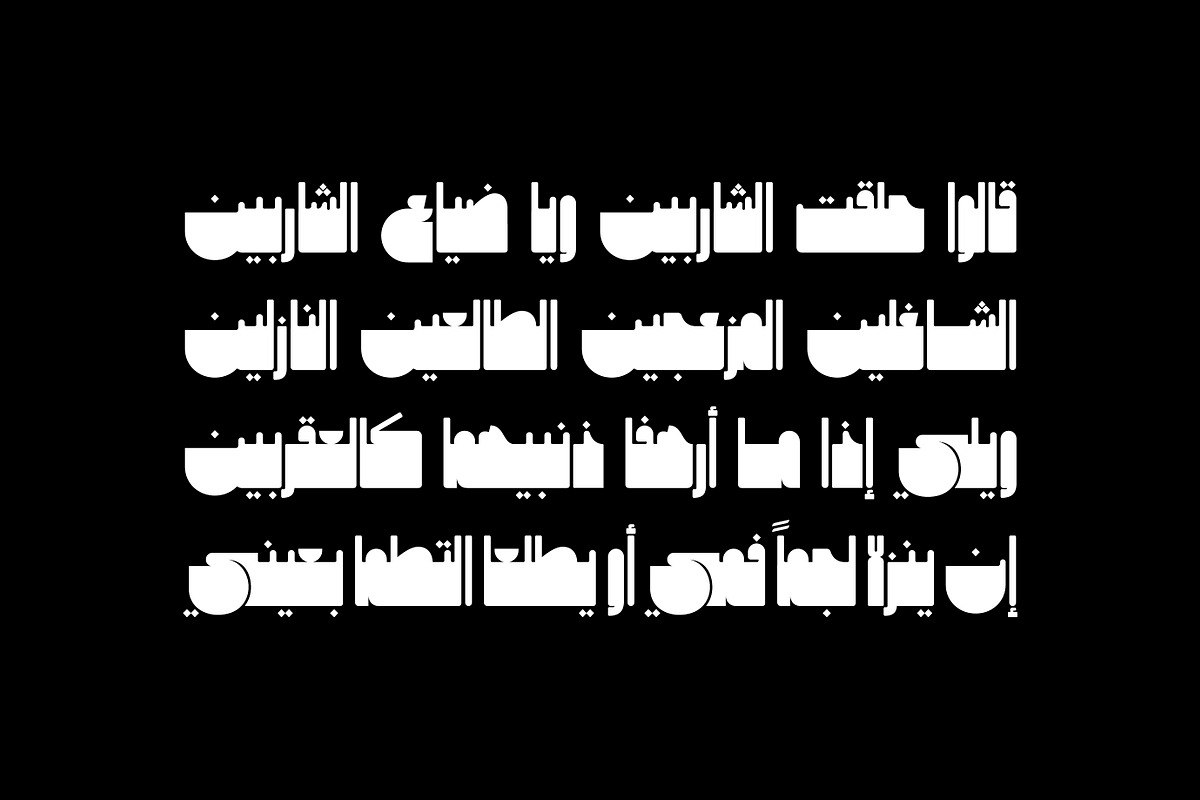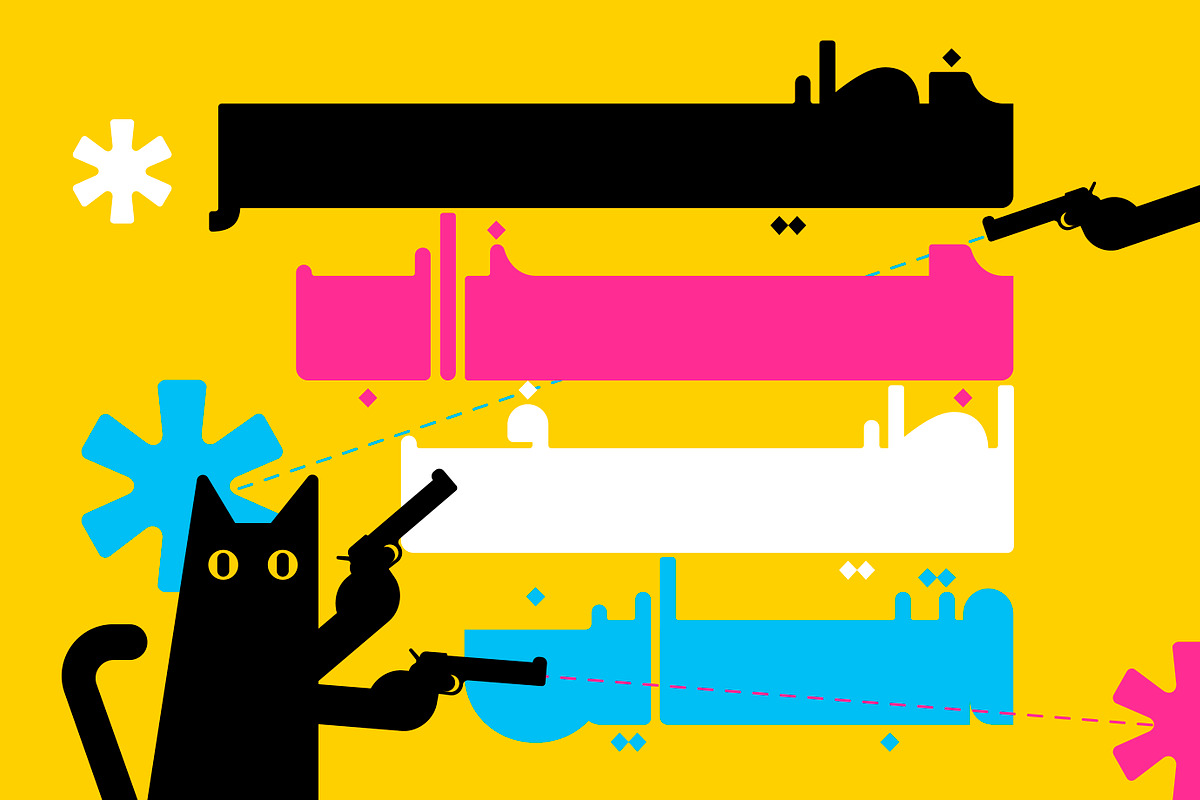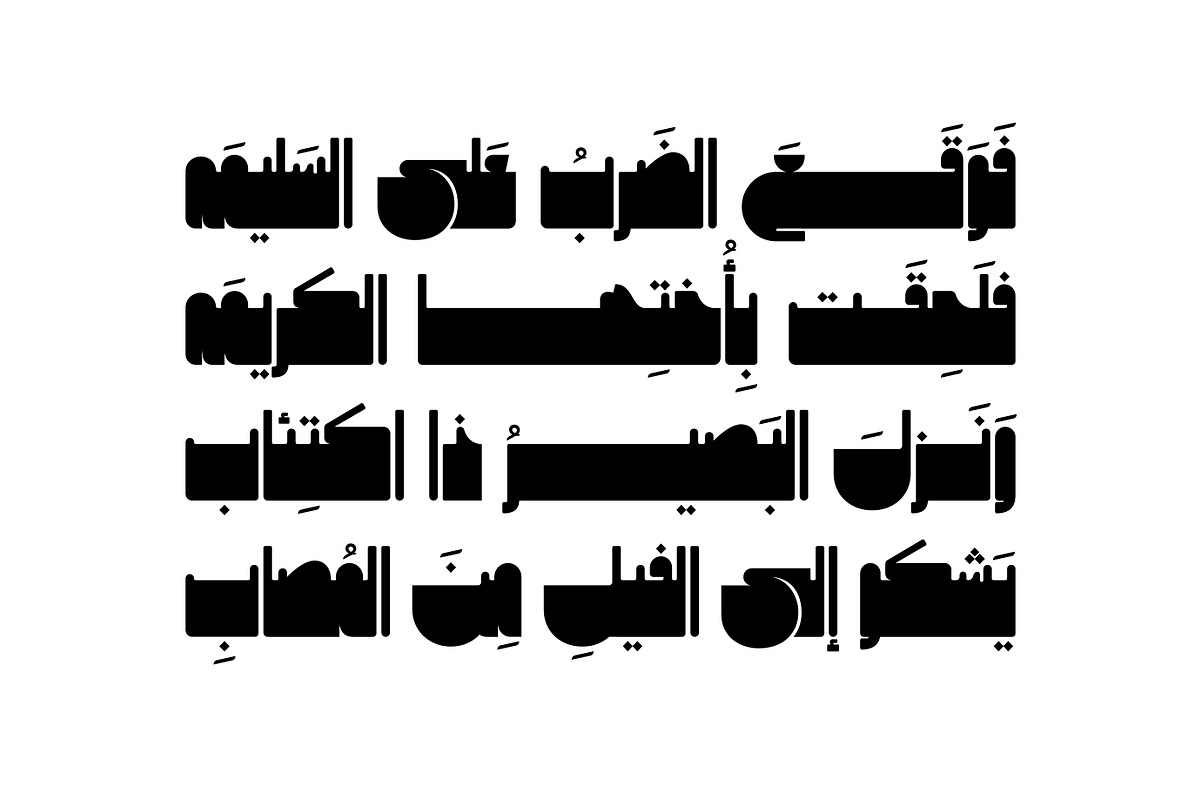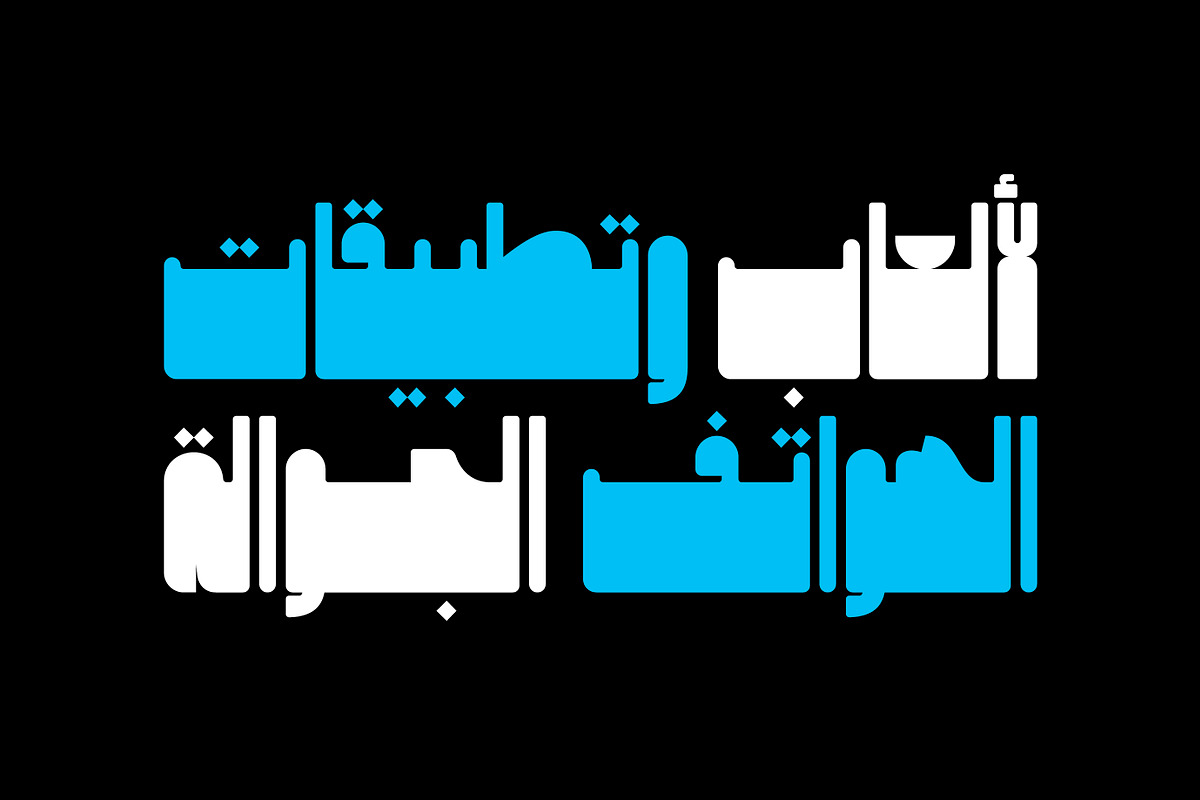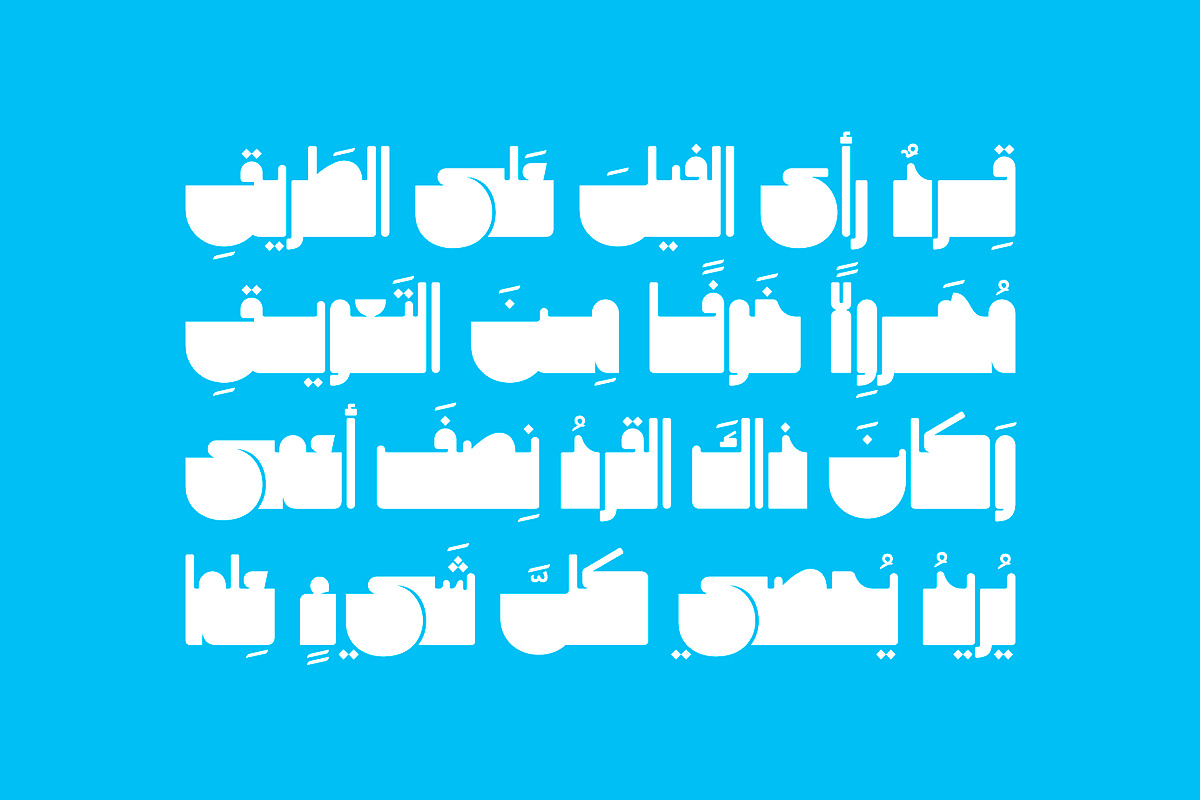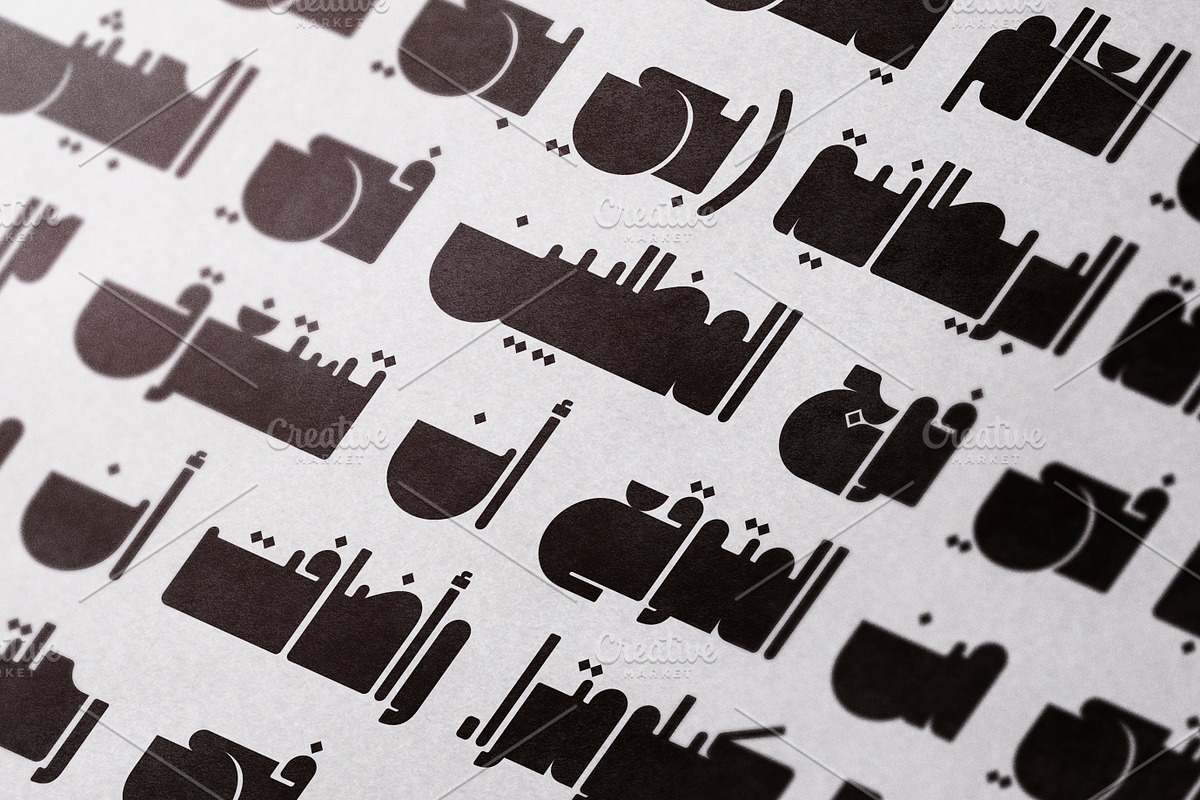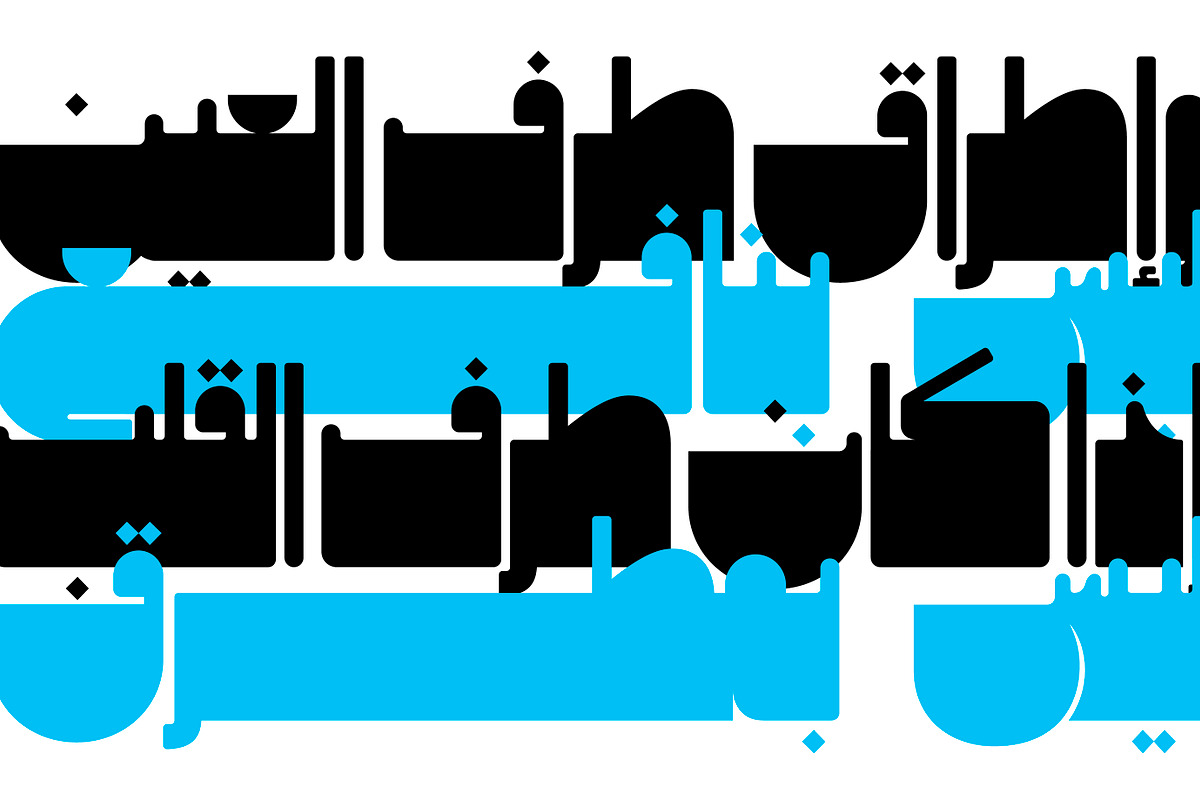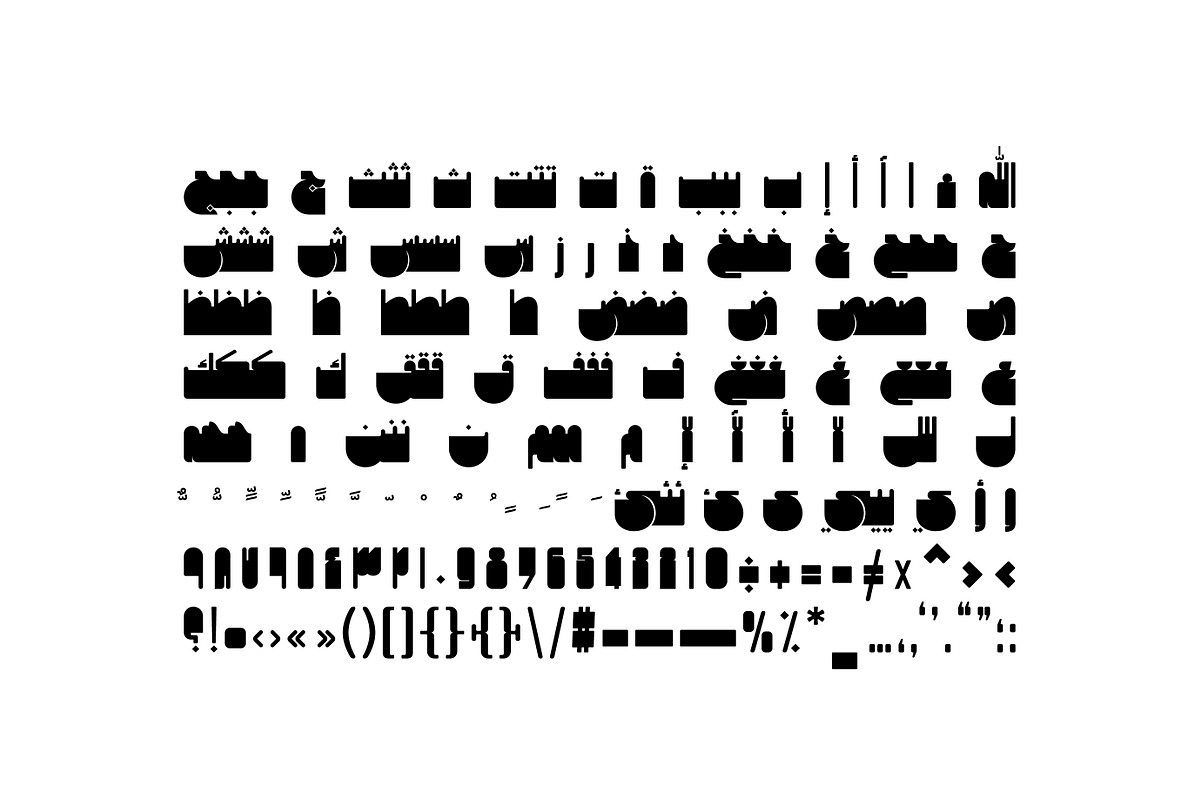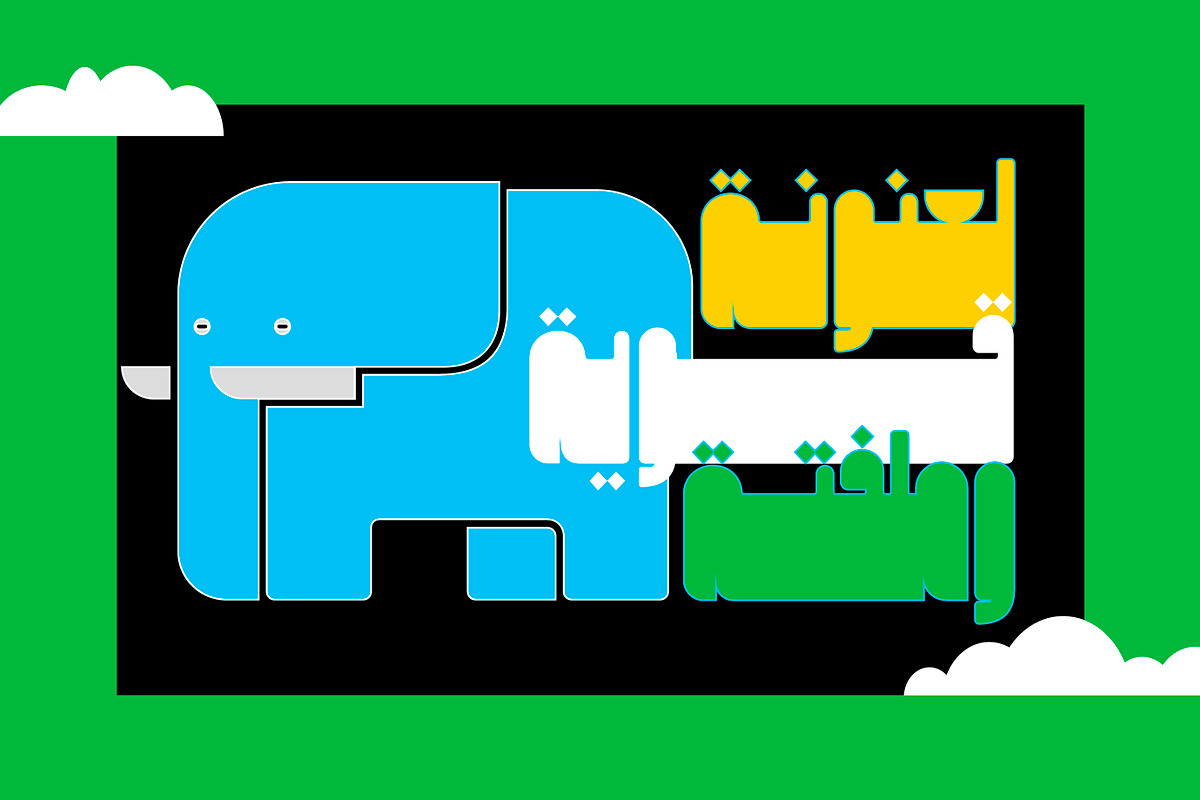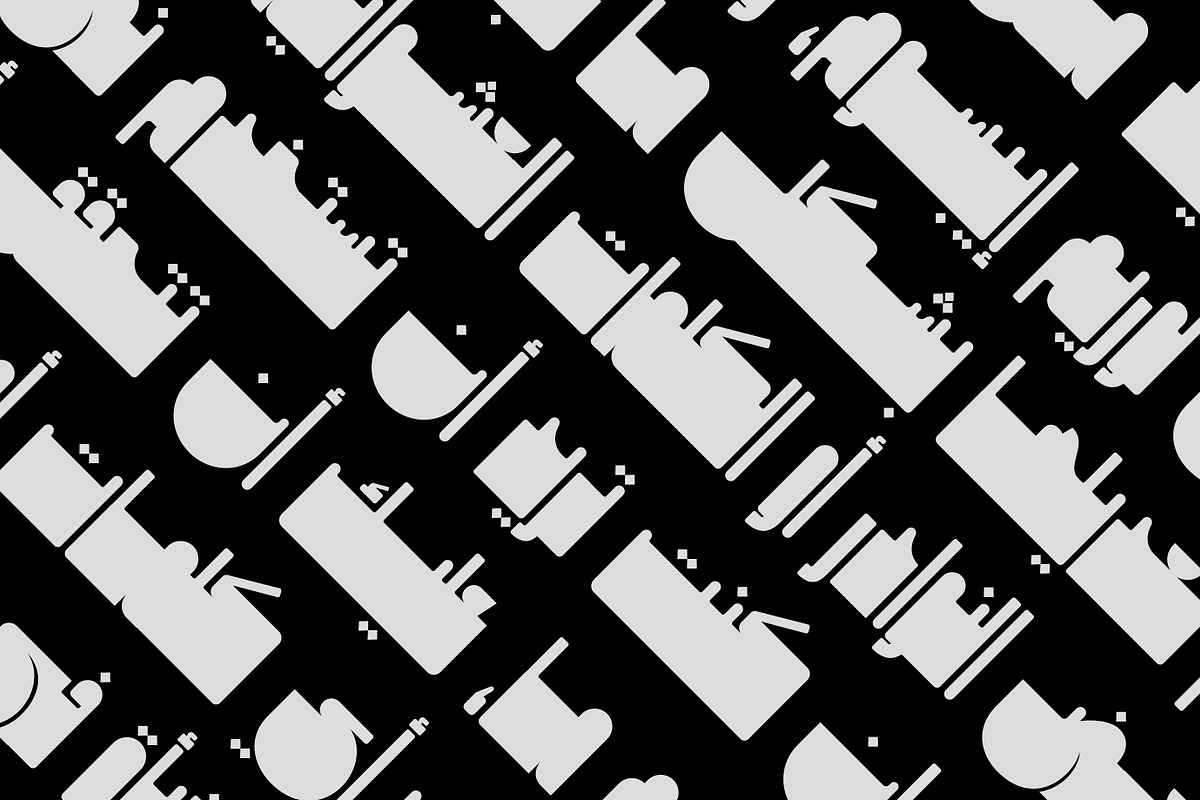
Makouky - Arabic Font
Makouky is an Arabic display font that features very heavy letterform design. This distinctive style makes it suitable for catchy logotypes, typography and advertising. Makouky supports Windows, macOS and mobile applications.